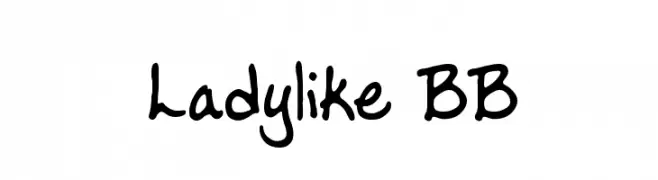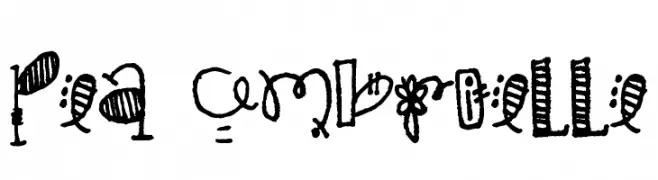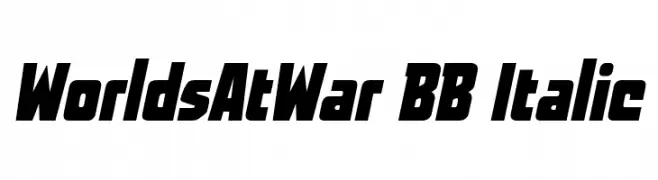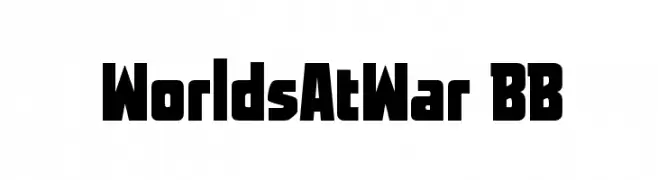
A bold, dynamic script font with a lively and fluid style.
A playful, handwritten font with rounded, consistent strokes and a casual vibe.
A bold, italicized handwritten font with a lively and dynamic style.
A bold, playful handwritten font with rounded, consistent strokes.
A bold, dynamic script font with smooth, flowing curves and a handwritten feel.
A bold, italicized font with a dynamic and impactful style.
A bold, block-like font with a modern, industrial feel.
A playful, casual handwritten font with dynamic strokes.
A playful handwritten font with bold, irregular strokes and a whimsical style.
A whimsical, hand-drawn font with playful, decorative elements.